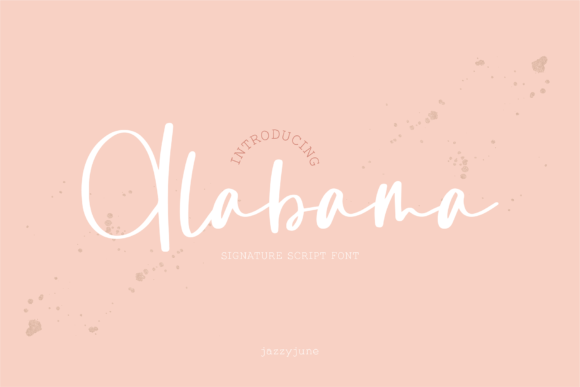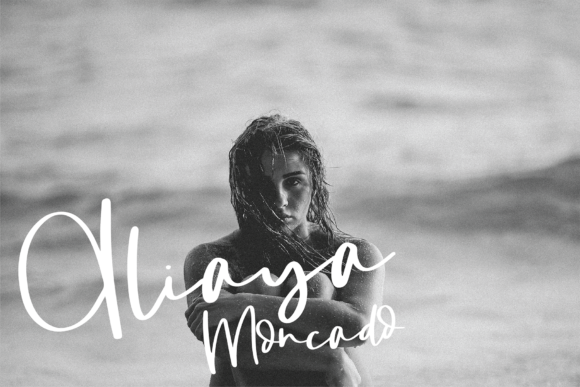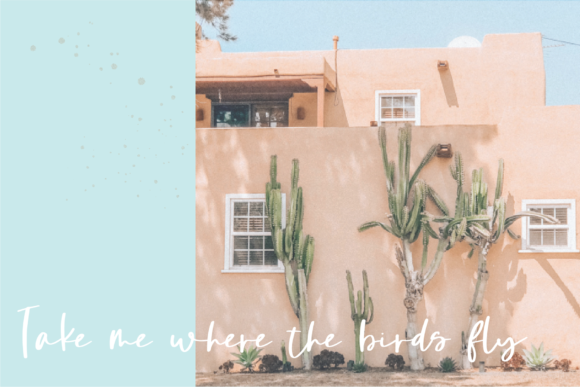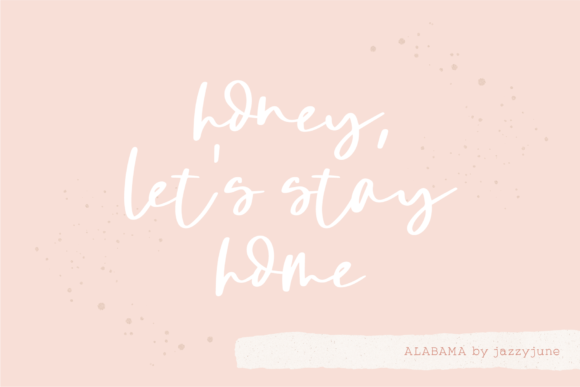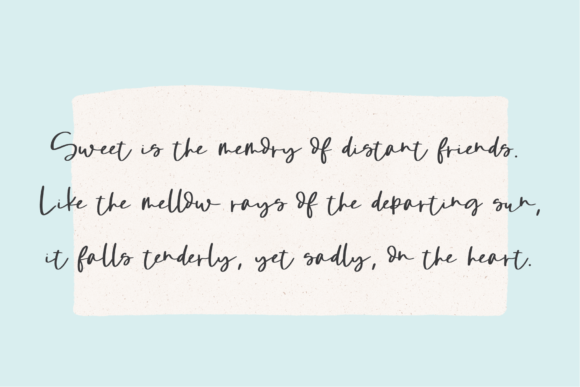
Alabama Font
About Alabama Font
Alabama is a relaxed and cursive handwritten font. It can be used for various purposes such as logos, wedding invitations, headings, t-shirts, letterhead, signage, labels, news, posters, badges and so much more.